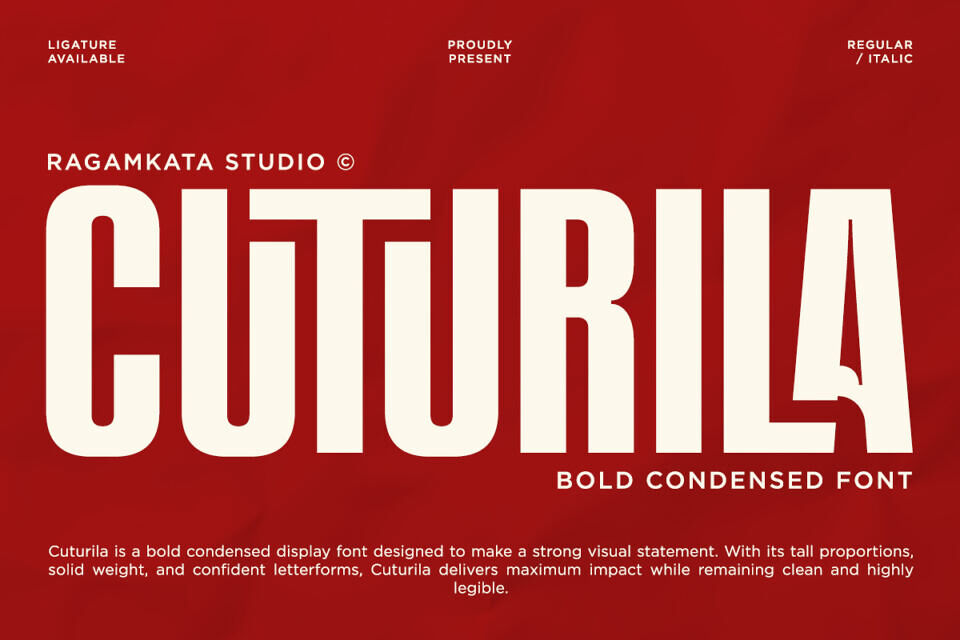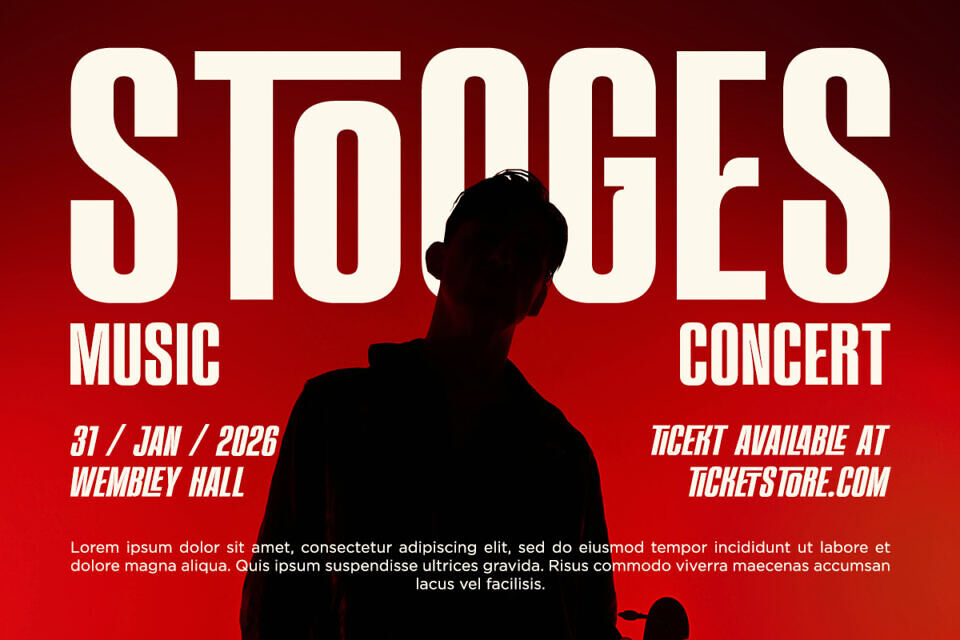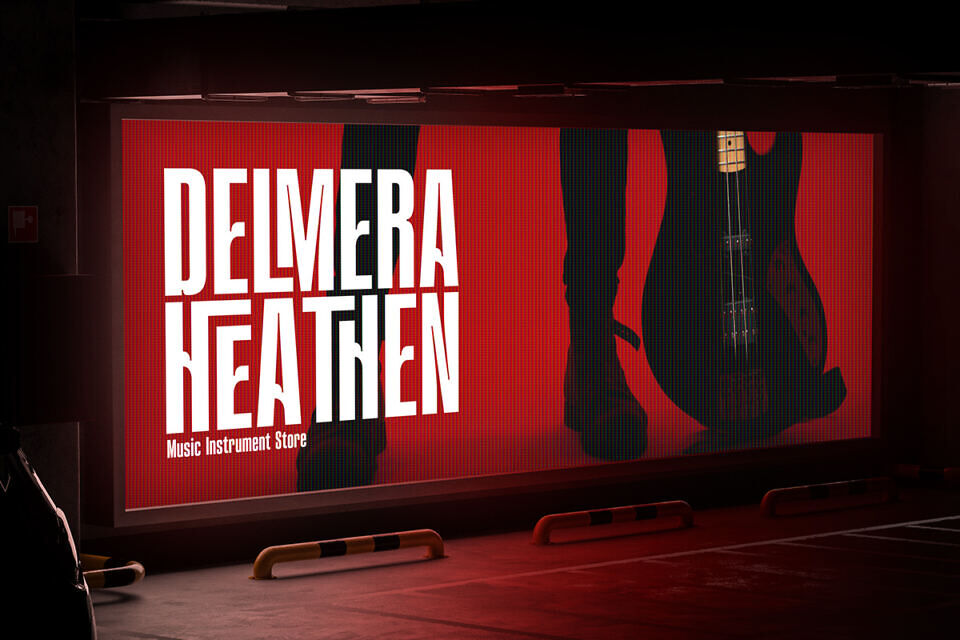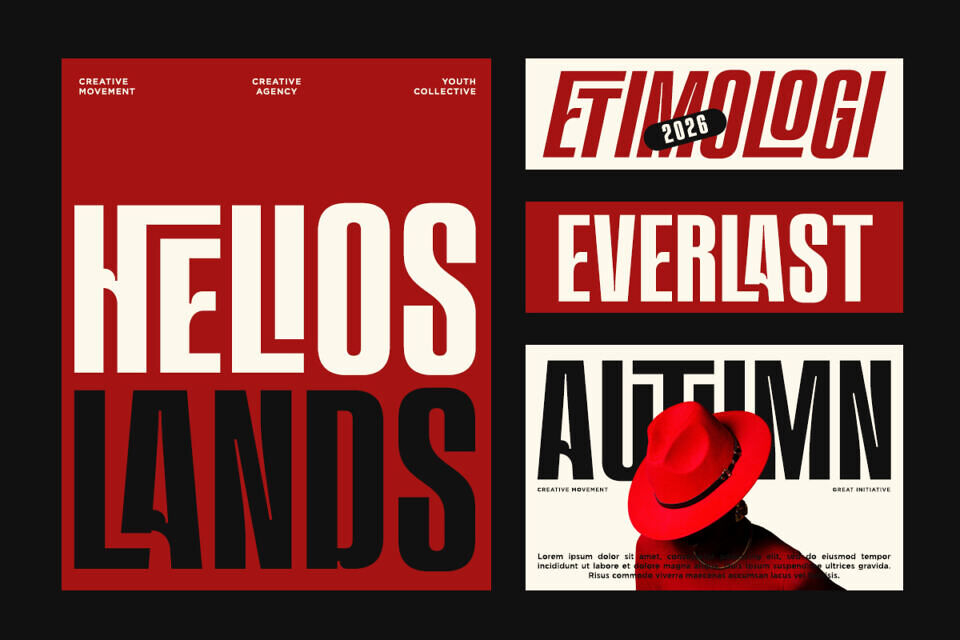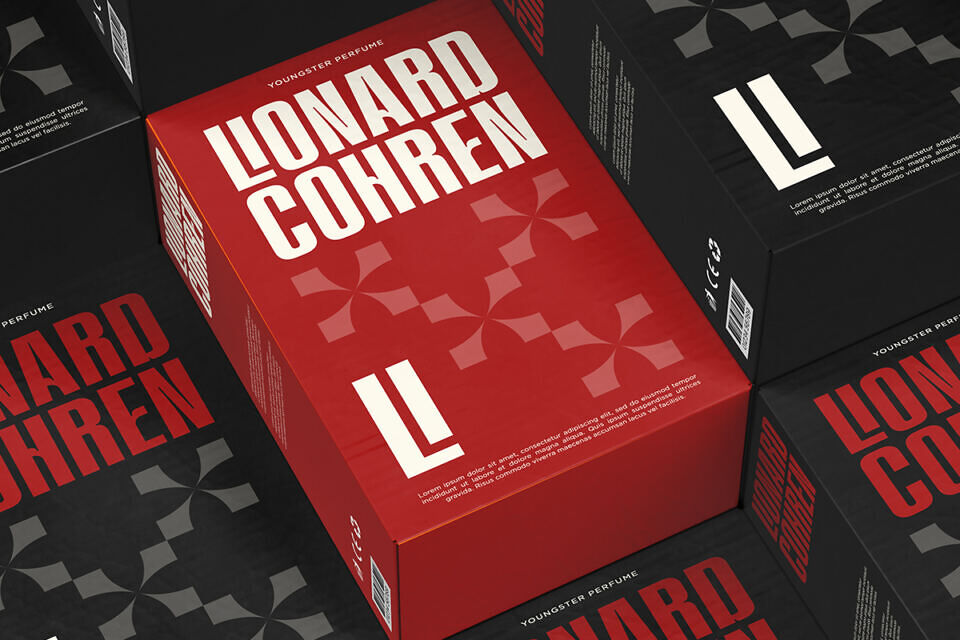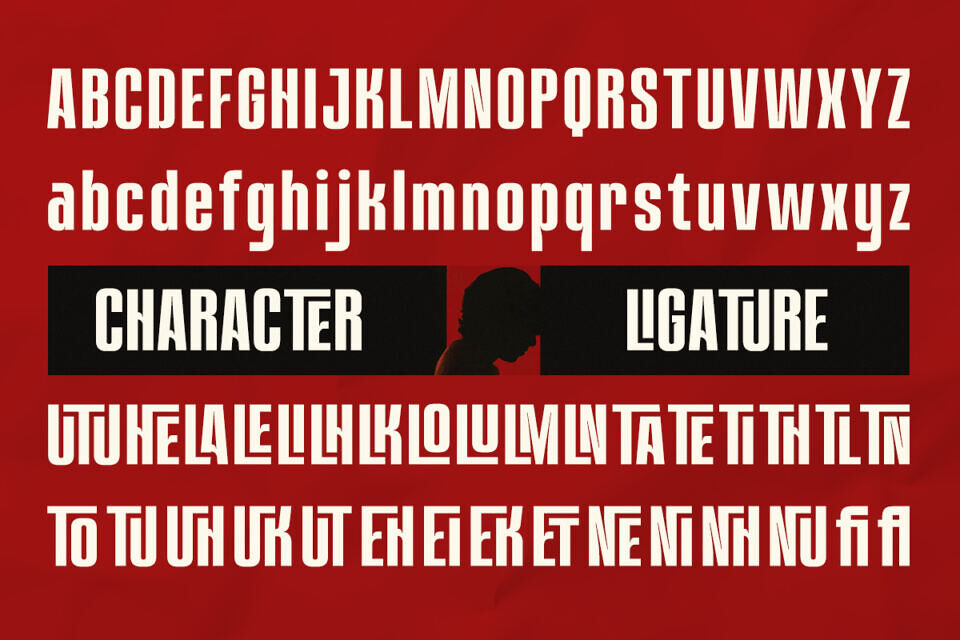
Cuturila Font
Cuturila is a bold condensed display font crafted to deliver instant visual impact. Designed with tall proportions and strong vertical rhythm, this typeface commands attention at first glance, making it ideal for designs that need to stand out with confidence and clarity.
Perfect for branding, posters, logos, packaging, editorials, and advertising, Cuturila is built for designers who want their message to feel strong, direct, and memorable. Whether used in print or digital projects, this font delivers a bold statement with refined precision.